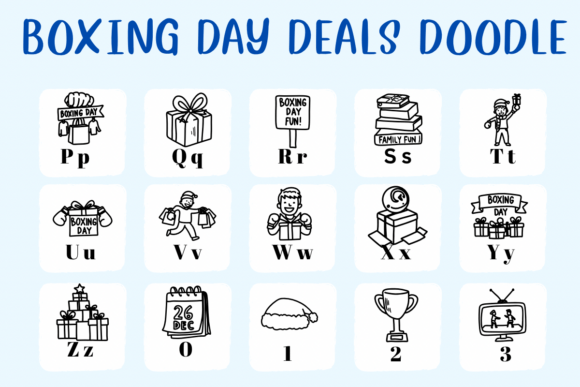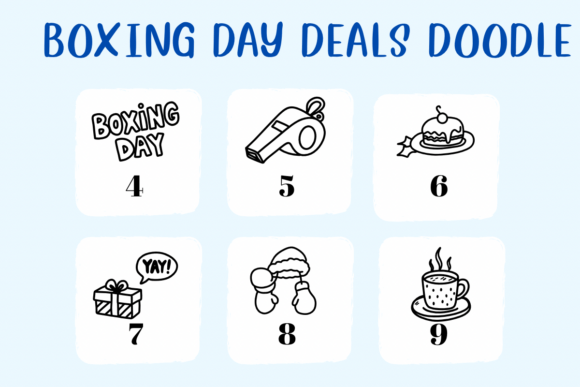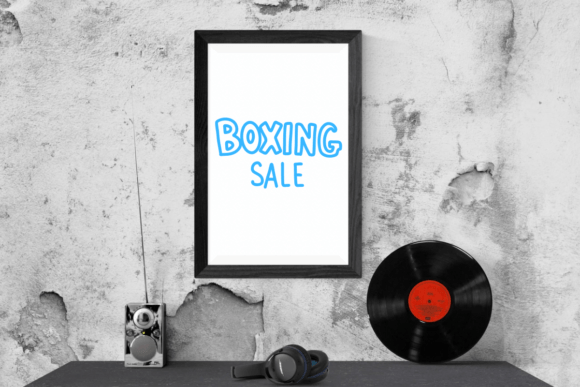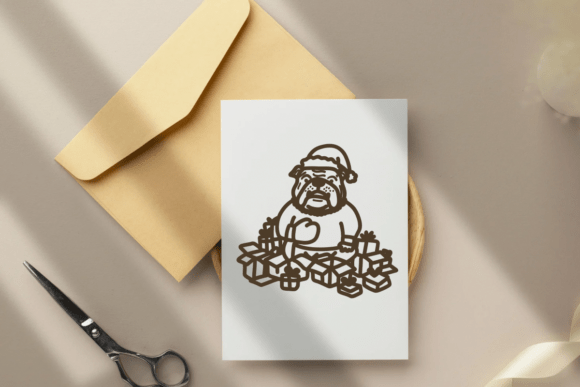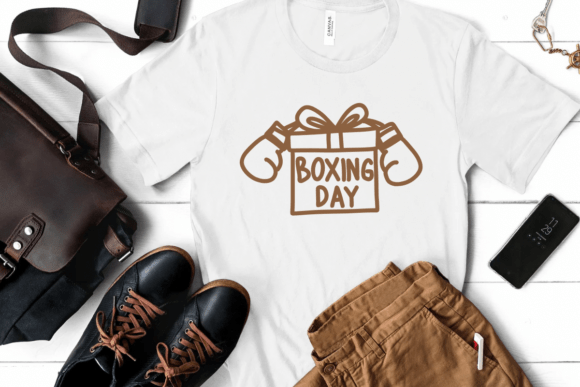
The Ultimate Post-Holiday Marketing Tool: Boxing Day Deals Doodle Font
As designers, we’ve all been there – staring at a blank canvas, trying to come up with the perfect visual concept for our holiday promotions. The clock is ticking, and we need something that’s both eye-catching and efficient. That’s where the Boxing Day Deals Doodle font comes in – a game-changing dingbats collection that’s packed with hand-drawn illustrations and icons specifically designed to capture the essence of post-holiday sales and shopping.
With the Boxing Day Deals Doodle font, you’ll have instant access to a library of charming, sketch-style visuals, including shoppers, gifts, sales tags, calendars, and festive elements. This specialized typeface is a designer’s dream come true, allowing you to quickly create engaging advertisements that are perfect for retail flyers, e-commerce banners, social media posts, and printable sale signage.
Key Features of Boxing Day Deals Doodle Font
- Unique, Hand-Drawn Design: The Boxing Day Deals Doodle Font features a distinctive, hand-drawn design that adds a touch of personality to any text.
- High-Resolution Graphics: The font includes high-resolution graphics, ensuring that it looks crisp and clear at any size or resolution.
- Unique Characters: The font includes a range of unique characters, including doodle-style icons and graphics, that can be used to add visual interest to text.
Boxing Day Deals Doodle Font Review
I recently had the chance to dive into the “Boxing Day Deals Doodle Font” and I must say it’s a fun, playful addition to any design project. ✨ The doodle style font is perfect for creating a festive atmosphere, especially during the holiday season. The font is available in a variety of weights, from light to bold, which makes it easy to customize to your needs.
Here are some of the things that work well with this font:
- ✨ The doodle style is unique and eye-catching, making it perfect for catching attention.
- ✨ The font is highly customizable, with various weights and sizes available.
- ✨ It’s perfect for creating a festive atmosphere, especially during the holiday season.
- ⚠️ The font may not be suitable for formal or professional projects.
- ⚠️ The doodle style may be too playful for some audiences.
- ⚠️ The font may require some additional styling to make it stand out.
Overall, I think the “Boxing Day Deals Doodle Font” is a great addition to any designer’s toolkit. While it may have some limitations, it’s perfect for creating a fun and festive atmosphere. With a little creativity, this font can be used in a variety of projects, from holiday marketing campaigns to social media graphics.
The Boxing Day Deals Doodle Font is ideal for creating promotional materials, such as:
- Posters and flyers for sales and promotions
- Social media graphics and advertisements
- Presentation slides and reports